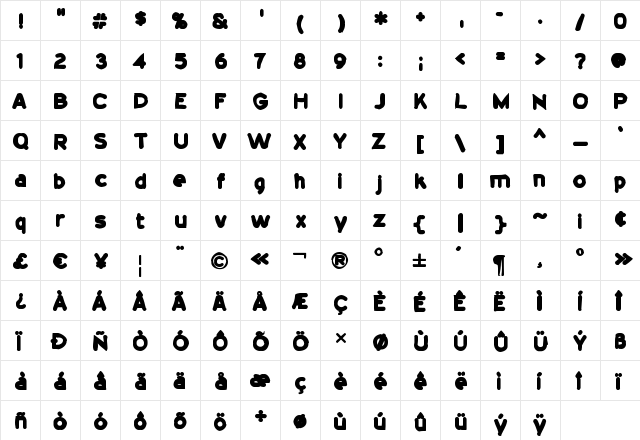
20th Century Ink Regular
Design Context for 20th Century Ink Typeface
20th Century Ink takes a measured approach to typography — its balanced proportions and neutral character make it a reliable workhorse for both digital and print work.